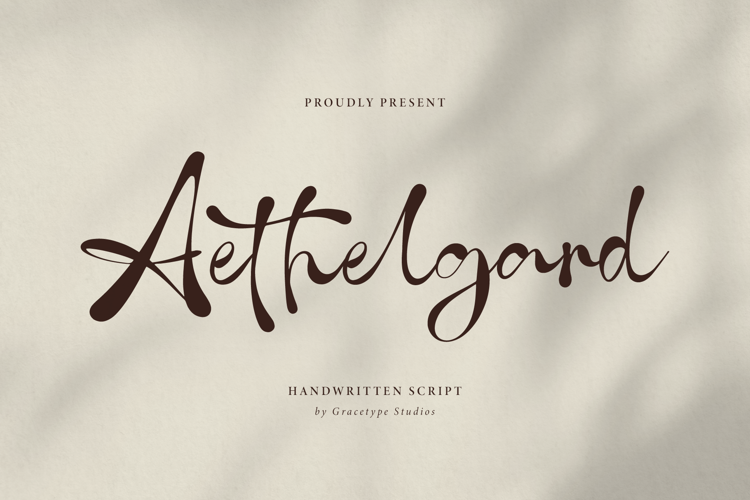
Aethelgard Font
Aethelgard | Handwritten Script, is suitable for any projects such as: logos, branding projects, homeware designs, product packaging, mugs, quotes, posters, shopping bags, t-shirts, book covers, name card, invitation cards, greeting cards, label, photography, watermark, special events, and all your other lovely projects that need a Script taste.